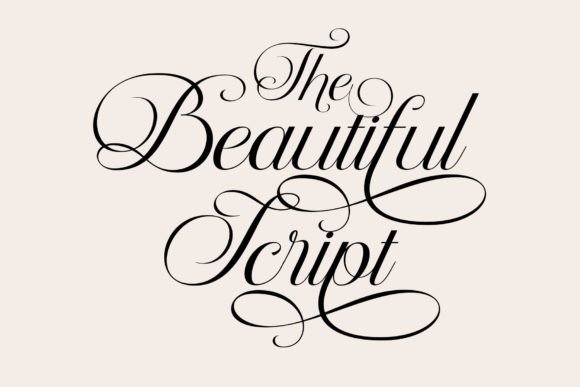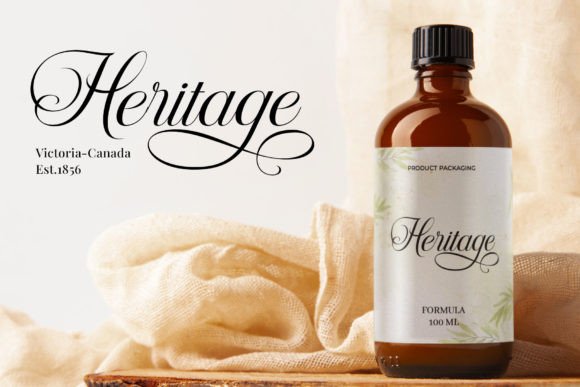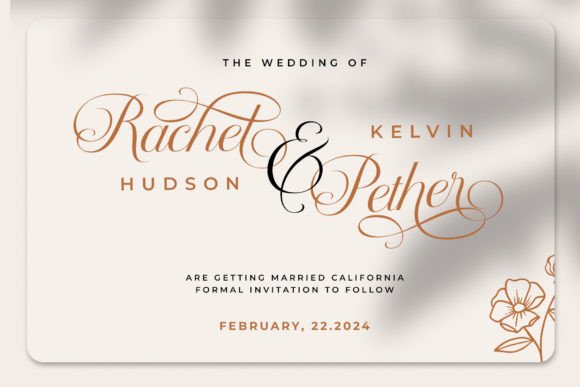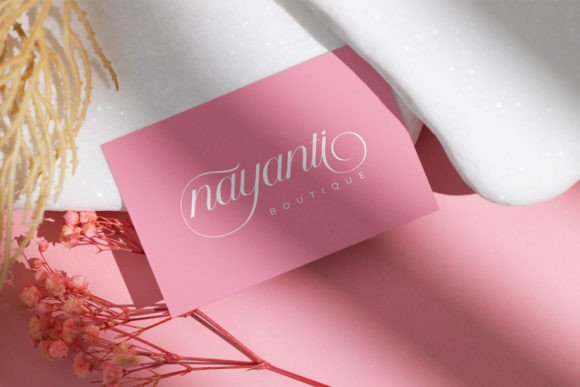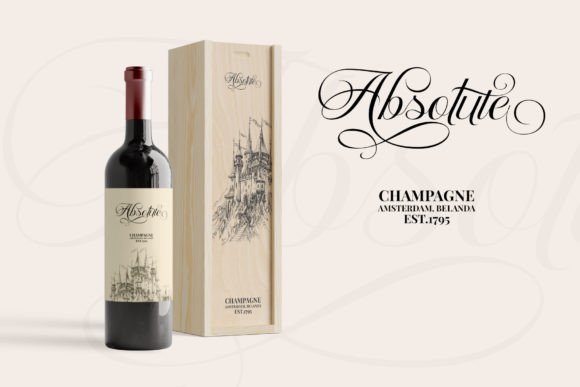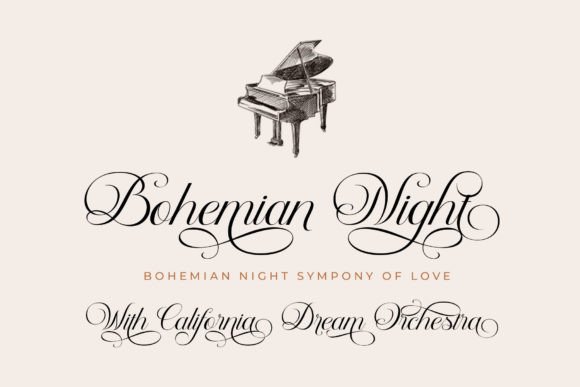
Enter the Delphia Village Font, a stunning choice for any creative endeavor. This beautiful font is designed to add a touch of elegance to your designs, whether it’s a logo, title, or watermark on photography. Its chic and sophisticated vibe makes it perfect for lifestyle design projects, from magazine covers to wedding events.
Delphia Village Font Key Features
- Font Family: Delphia Village Font is a unique, hand-drawn font family with a rustic, village-inspired feel.
- Characteristics: Delphia Village Font features a mix of uppercase and lowercase letters, numbers, and punctuation marks, with unique ligatures and swashes for added flair.
- Unique Characteristics: This font family includes a range of alternates, including bold, italic, and condensed styles, making it perfect for creating visually appealing headings and titles.
Delphia Village Font Review
Delphia Village Font has a certain charm to it ✨. The font is a mix of modern and vintage elements, which makes it suitable for a wide range of projects. The font’s curves and lines give it a friendly and approachable feel, making it perfect for branding and marketing materials.
The font also comes with a variety of weights and styles ✨, allowing designers to choose the perfect combination for their project. The font’s versatility makes it a great option for designers who want to add some personality to their work.
- ⚠️ Delphia Village Font can be a bit too ornate for some projects. The font’s intricate details may not be suitable for projects that require a clean and minimalist look.
- ⚠️ The font may not be as readable at smaller font sizes. The font’s curves and lines can make it difficult to read if the text is too small.
Overall, Delphia Village Font is a solid choice for designers who want to add some personality to their work ✨. While it has some limitations, the font’s versatility and charm make it a great option for a wide range of projects.
Getting the Most Out of Delphia Village Font
To get the most out of Delphia Village Font, use it for:
- Crafting rustic or vintage-themed designs.
- Creating elegant and sophisticated invitations or wedding stationery.
- Designing book covers or magazine titles.
Delphia Village Font is commonly used for:
- Book covers and magazine titles.
- Rustic or vintage-themed designs.
Alternatives to Delphia Village Font
Great Vibes is a beautiful script font that resembles a handwritten font. It is ideal for use in creative projects, such as invitations, quotes, and social media graphics. It is more elegant and refined compared to Delphia Village Font, which has a more rustic feel.
2. Alex Brush Font
Alex Brush is a calligraphic script font that is perfect for use in headings, titles, and quotes. It has a more refined and elegant feel compared to Delphia Village Font, which is more suitable for body text. Alex Brush is ideal for use in creative projects, such as magazines, books, and websites.
Dancing Script is a fun and playful script font that is perfect for use in creative projects, such as social media graphics, posters, and advertisements. It is more casual and fun compared to Delphia Village Font, which has a more rustic and vintage feel.